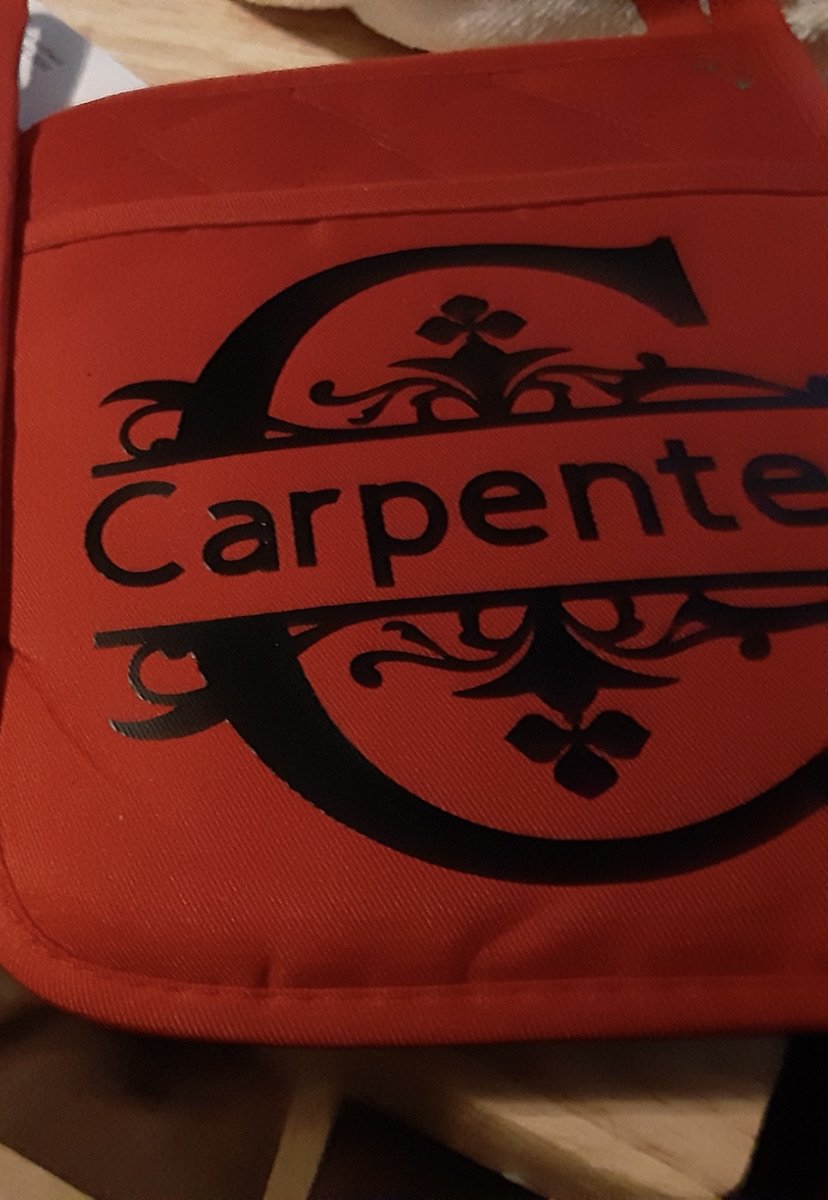
Split Letter Monogram Font
Split Letter MonogramFont
Monogram font Bonus
Introducing Split Letter Monogram fonts Perfect for initials, branding, logo design, product packaging, greeting cards, for wedding crafts, invitations, t-shirts, bloggers, wall art, scrapbooking, card designs, jewelry, boutiques, websites, magazines, posters , packaging, bags, or whatever design you think. Each design is provided in black just to be foil or letterpress, but can be easily edited again.
There are no fonts included in this set, you can use any font to fill in the blank split areas in your program.